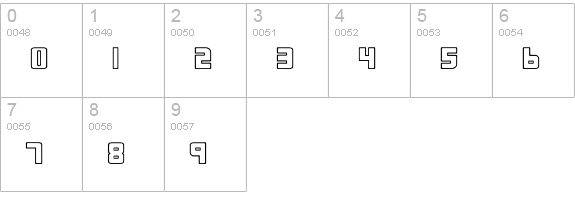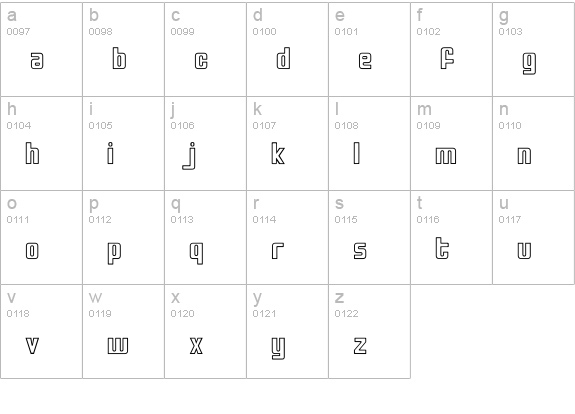
Bio-disc Font Details
Introducing Bio-disc font, a sleek and modern typeface that exudes sophistication and elegance. This versatile font is perfect for a wide range of design projects, from branding to editorial design and everything in between. With its clean lines and unique character shapes, Bio-disc font is sure to make your text stand out and leave a lasting impression. What's even better is that Bio-disc font is available for free download at FontsMarket.com. So you can easily add this stylish font to your collection without breaking the bank. Don't miss out on the opportunity to enhance your designs with this stunning typeface. Download Bio-disc font today and take your projects to the next level!